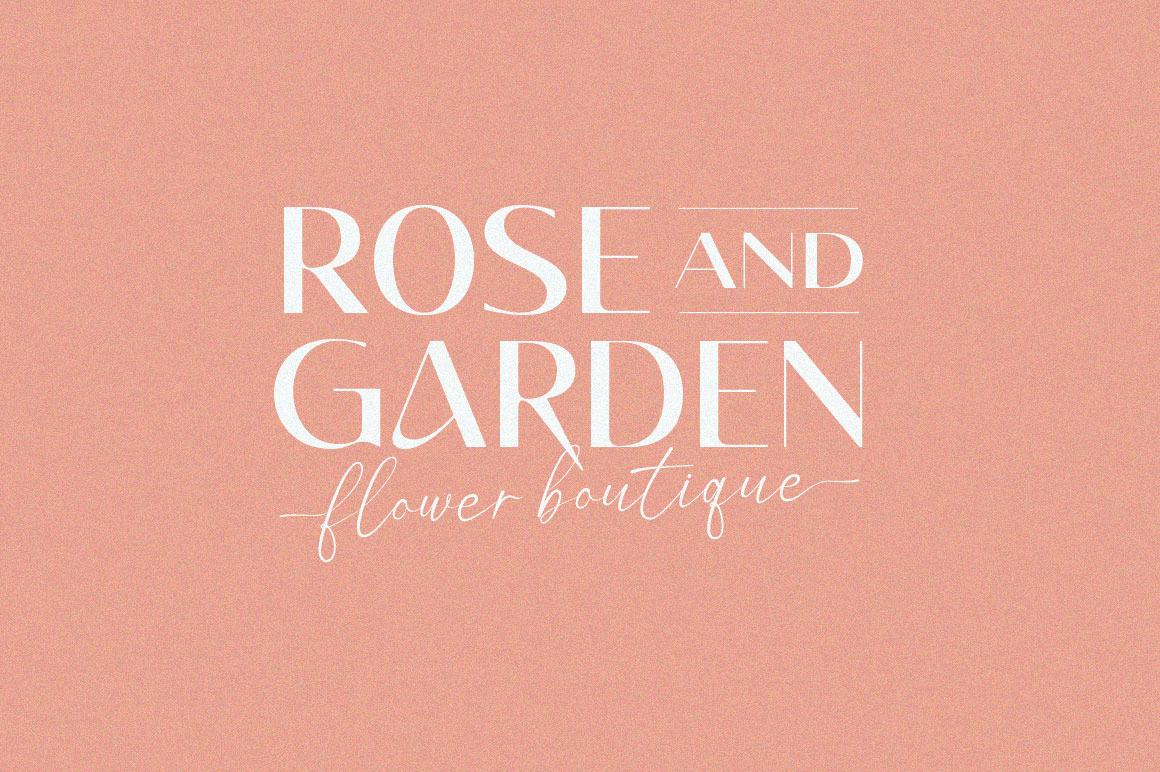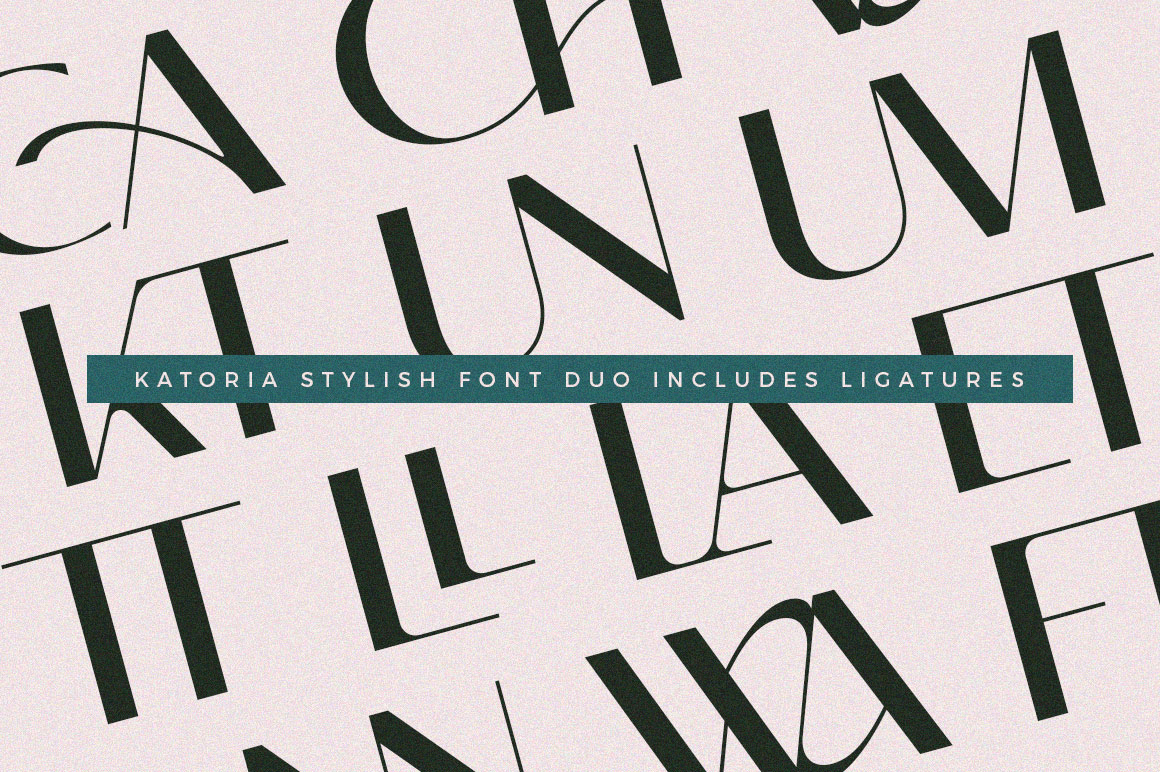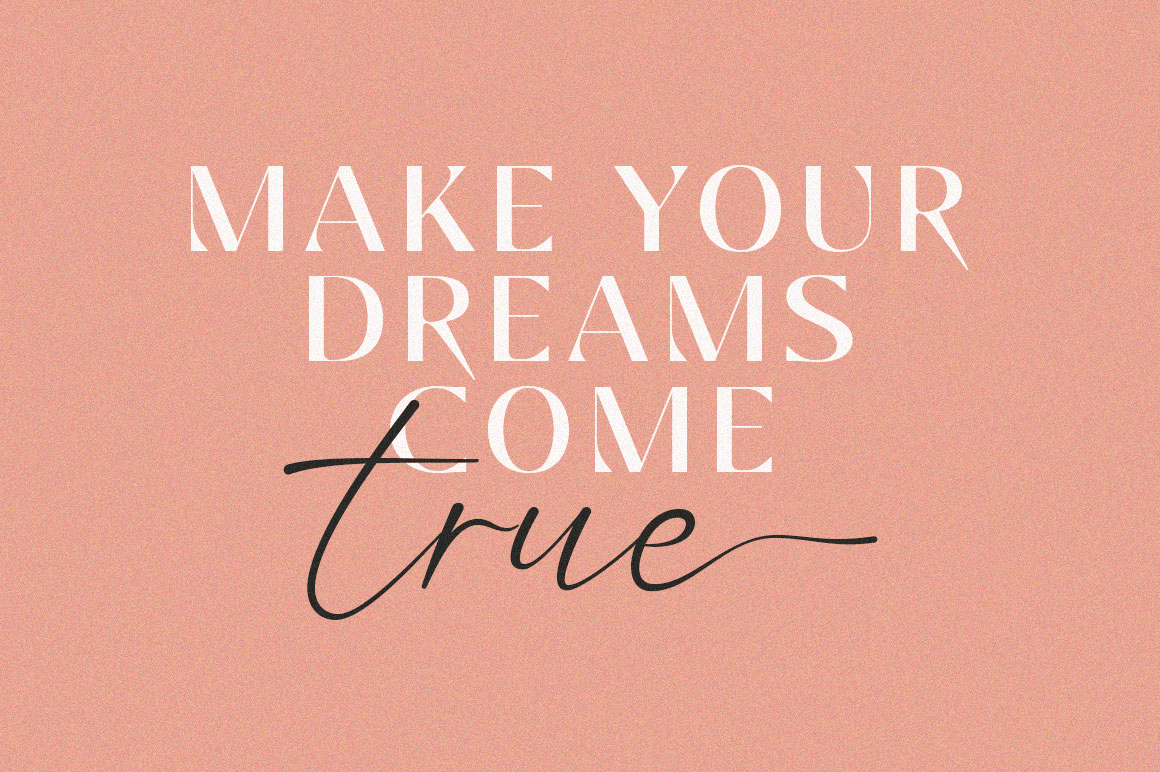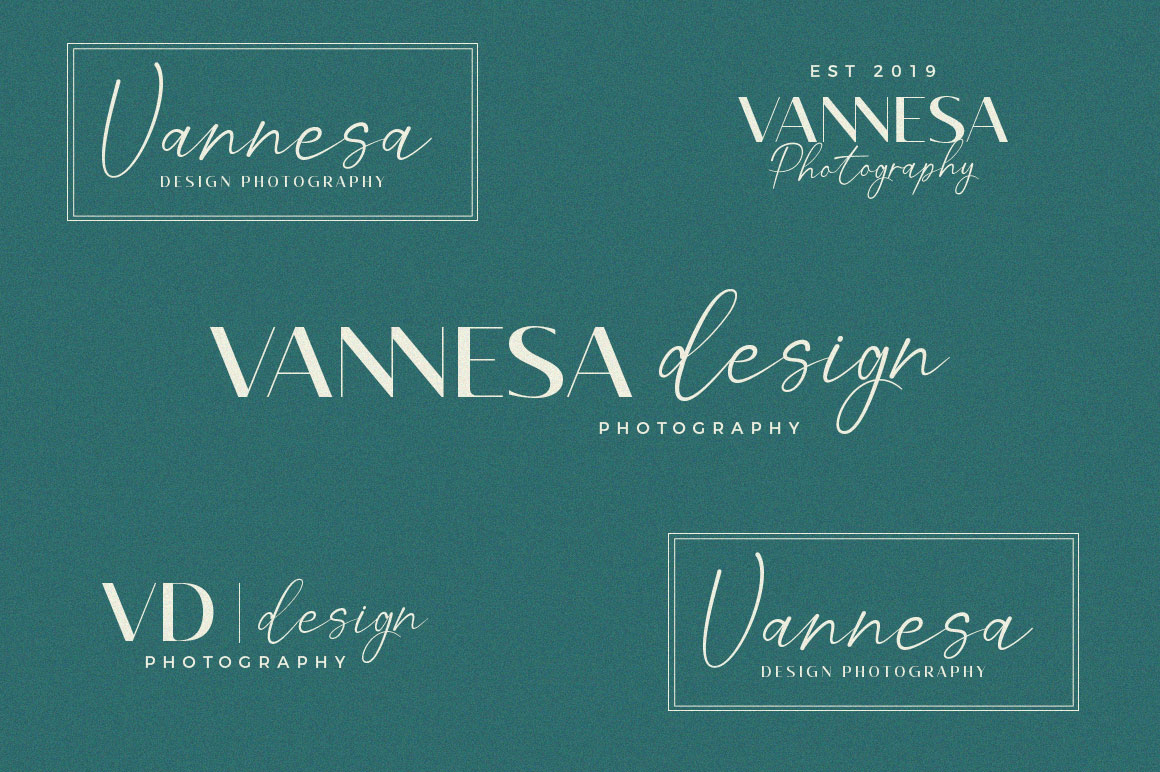
About Katoria
Introducing Katoria – a luxury font duo with elegant combinations. You can use it as an addition or main. In this font all letters are Uppercase, and you will find various ligatures and alternatives that will help you create a unique design for your project.…